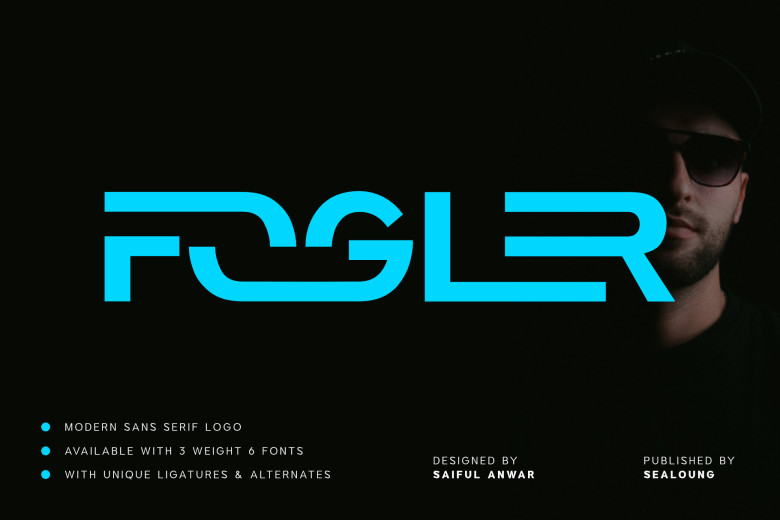
Fogler Font
The font type is well-measured contemporary Sans serif font that is called Fogler, the logo is unique and is named Corporate Logo Sans Serif Font well-measured, modern and balanced with an iconic appearance. This family of fonts include a sans serif that has both ligatures and alternates which can be combined or switch between to create letter shapes in just a matter of seconds.
Perfect for branding projects, logos, posters, social media, ads, product, or design, labels, photos, watermarks, invitations, stationery, and more, it has great readability.
Fogler Sans Serif Font Family